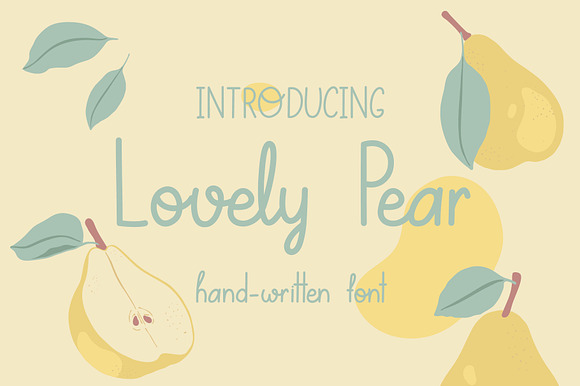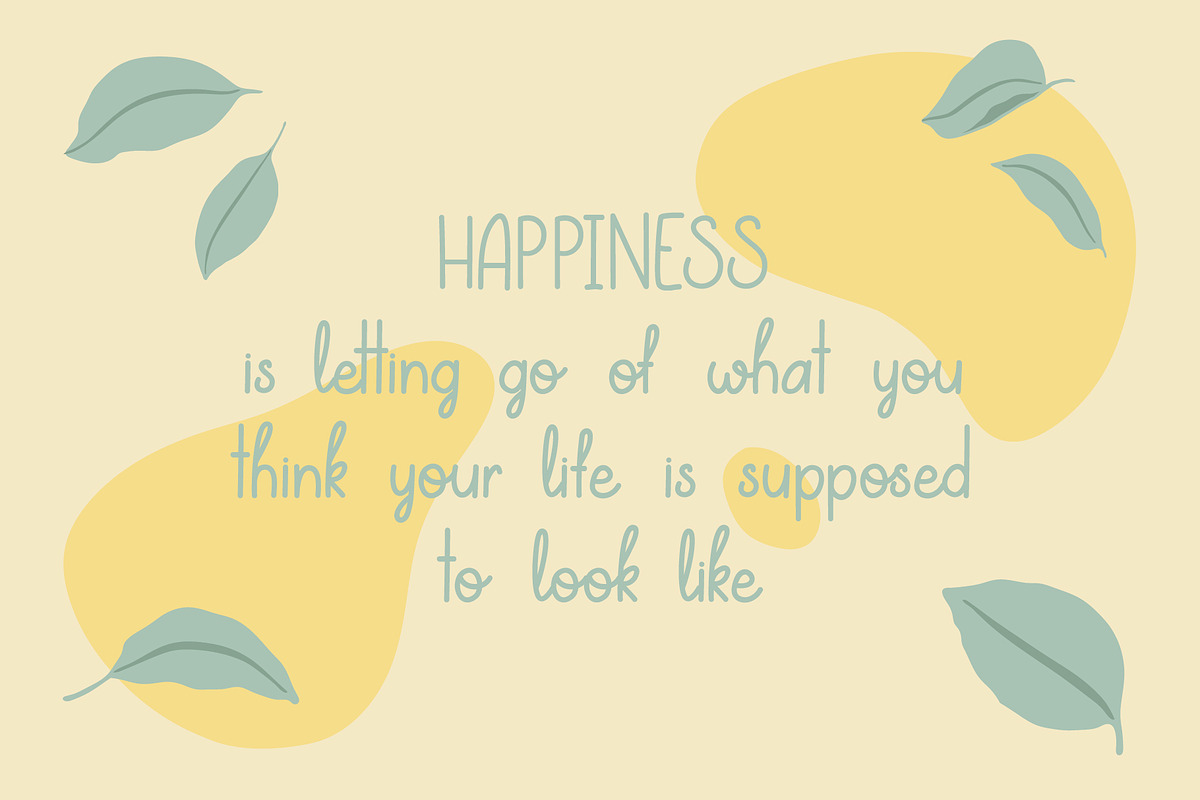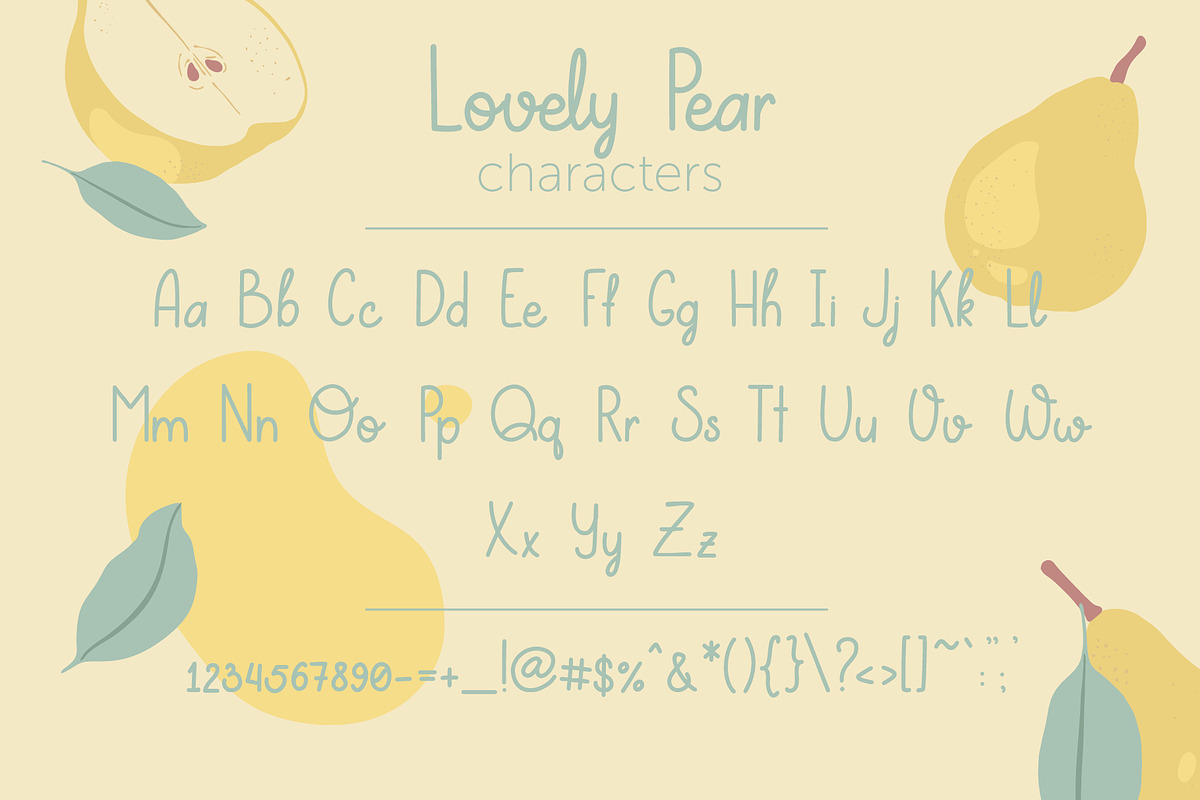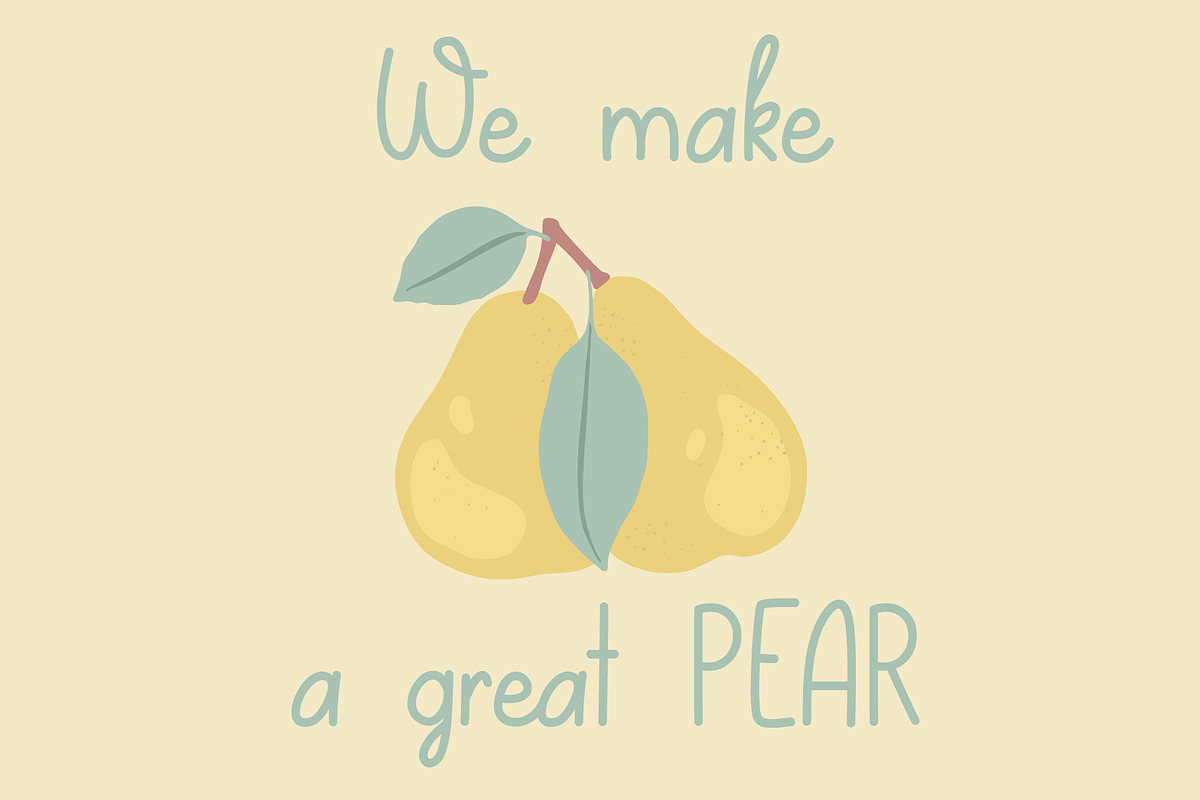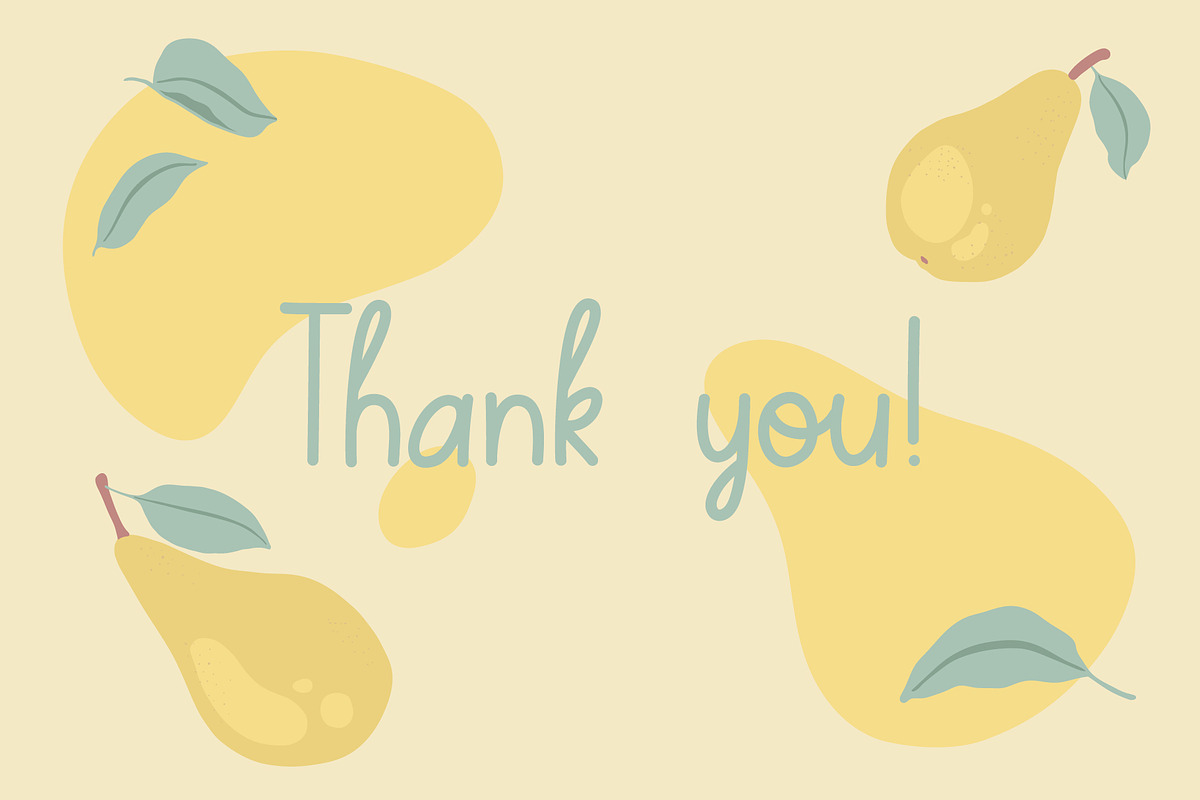
Lovely Pear | hand-written font
Hi guys! I am pleased to introduce my new font - Lovely Pear. It's a simple handwritten font with clean lines. This font is well suited for titles, quotes, phrases. Also it would look great in logos, labels, heading and posters. And this font would looking good on t-shirts.
- Lovely Pear font contains uppercase, lowercase characters, numbers and punctuation.